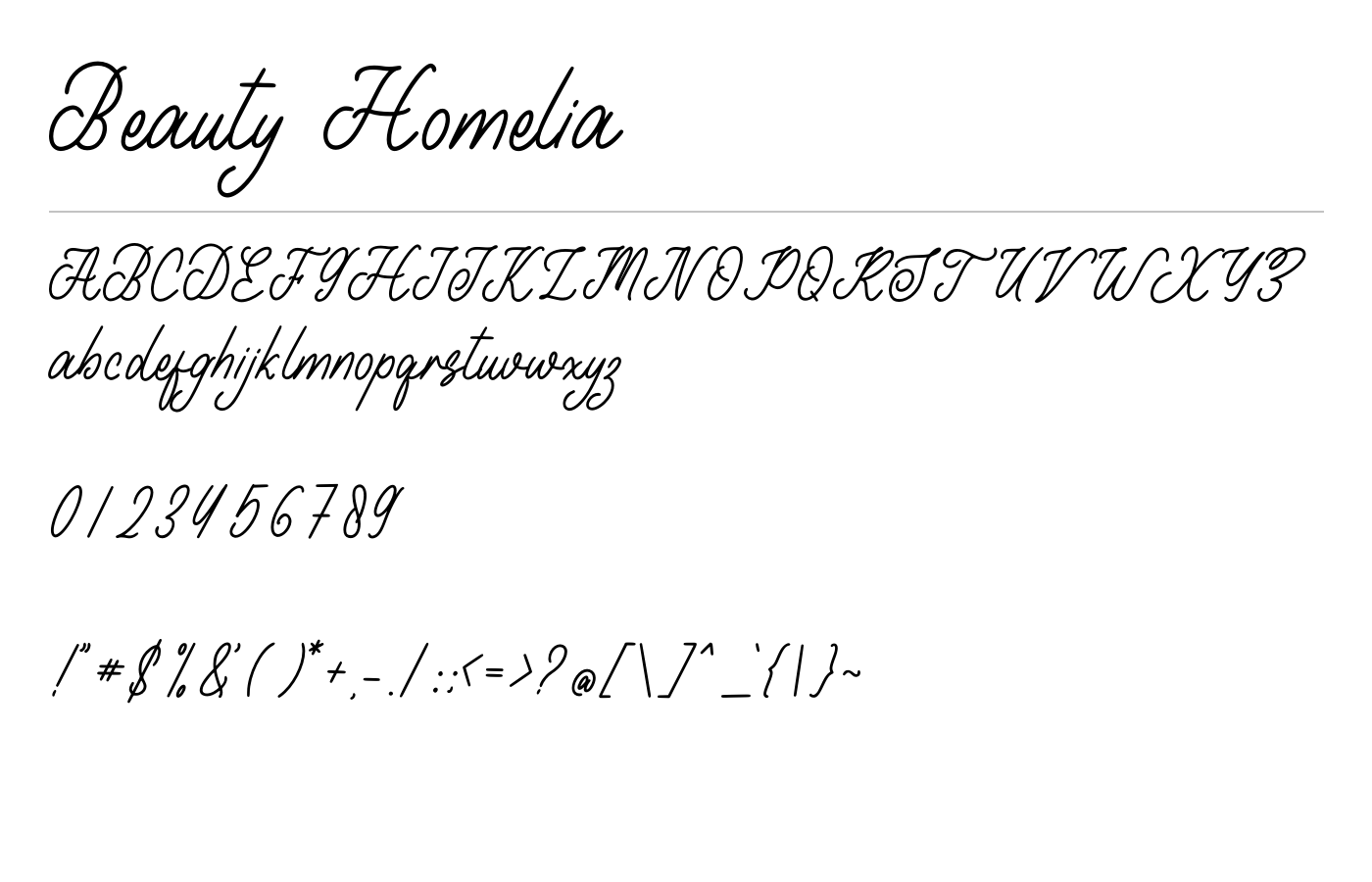
Beauty Homelia is an elegant script font with a delicate and graceful handwritten style, characterized by slender strokes and fluid connections. Its refined letterforms and slightly tall x-height make it perfect for sophisticated branding, invitations, and feminine design projects where a personal, stylish touch is desired. This font works beautifully in logos, headlines, and decorative text that aims to convey charm and elegance.
Beauty Homelia Font